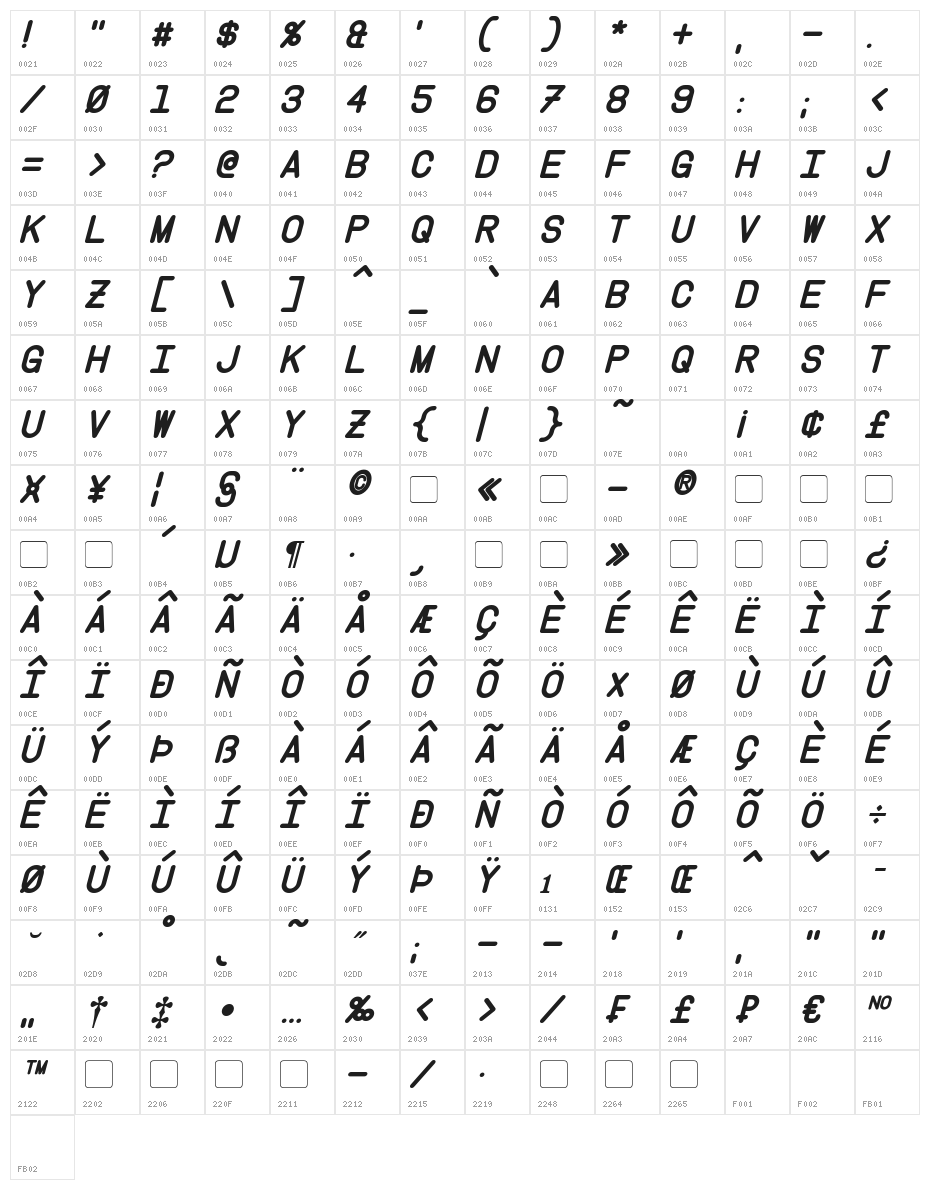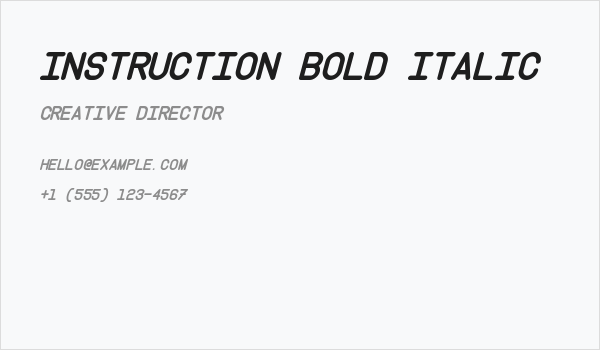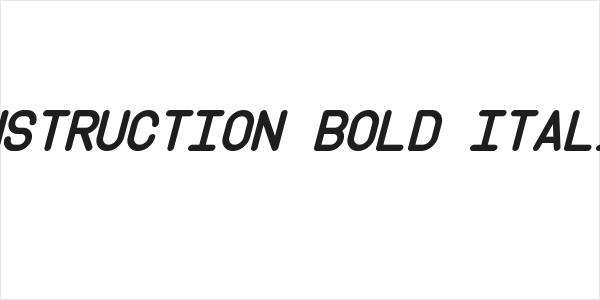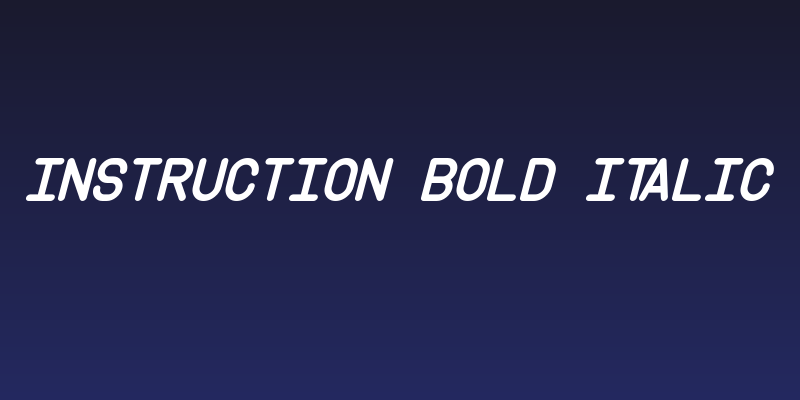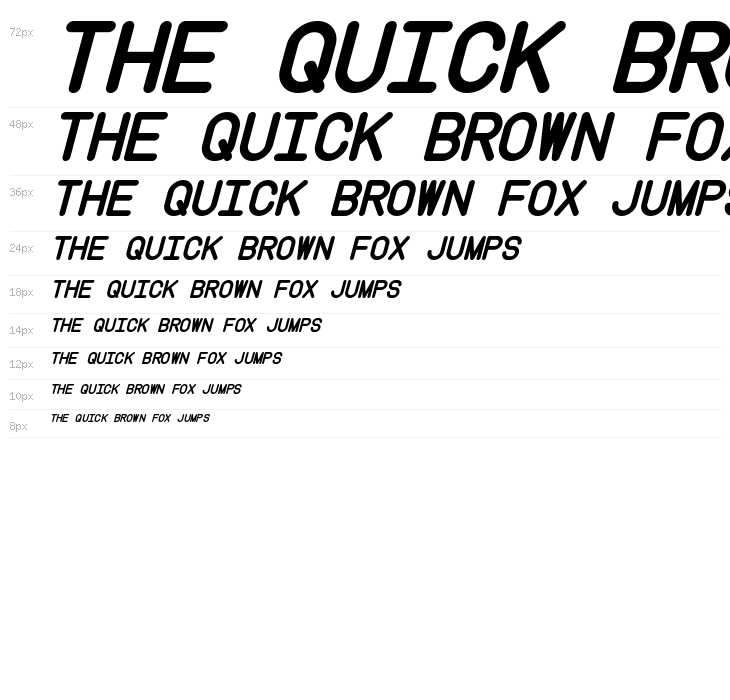
Instruction Bold Italic Font
Instruction Bold Italic Description
This font features a bold and italic style, characterized by its slanted and robust letterforms. The strokes are thick and consistent, providing a strong visual impact. The characters are slightly condensed, enhancing the compact and dynamic appearance. The font maintains a uniform stroke width, contributing to a clean and modern look. The rounded edges of the letters add a touch of softness, balancing the boldness with a friendly feel. This style is versatile, suitable for various applications where emphasis and readability are key.
| Use Case | Headlines, Logos, Signage |
| Proposed Projects | Ideal for branding, advertising, headlines, and signage where a strong, modern impression is needed. |